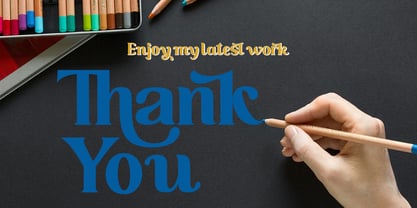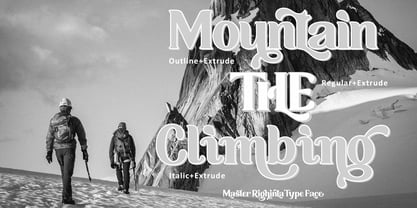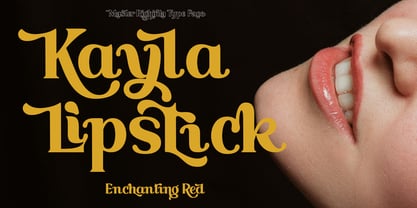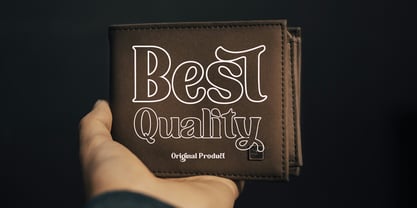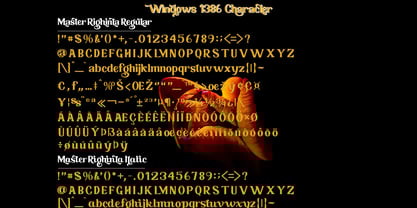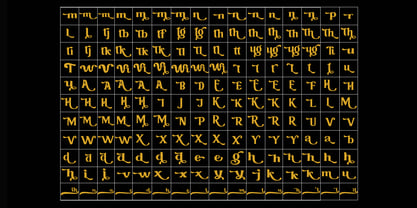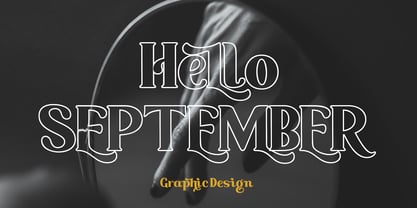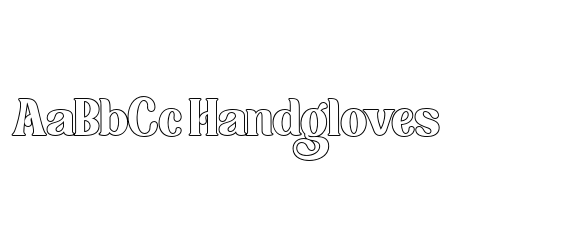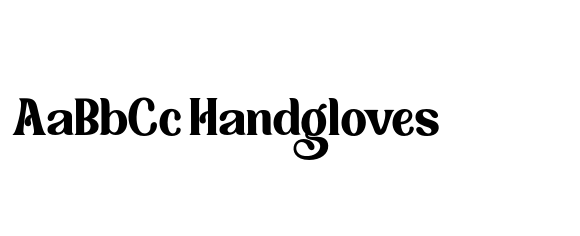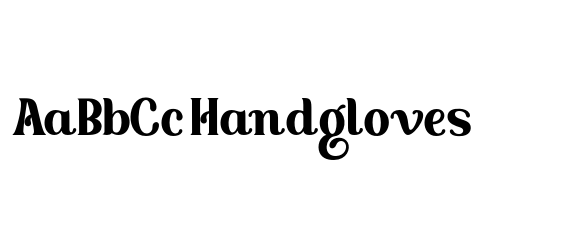
Master Righinta
by TM Type
The Master Righinta Font Family was designed by Teuku Bustami and published by TM Type. Master Righinta contains 6 styles and family package options. More about this family
About the Product Master Righinta Typeface Retro with an artistic touch elegant modern yet vintage the as well as a unique blend of ligatures a letter, so that the authors compose it with a and little swirly embedding, so that a modern font is formed and ready to make a statement by adding elegant and unique flair to your next design project. Master Righinta Typeface can be used for various purposes such as Magazine Title, Poster, Logo, T-Shirt, Sub Title, Business cards, Magazines, Book Covers, Wedding Invitations,Templates Instagram Story Post, Greeting Cards, Quotes, etc. These letters are embedded into the font file and easily accessible in programs such as photoshop and illustrator. You can access these in more basic design programs but you will need to use your character map or font book Come on..let's style and pamper your next design with Master Righinta Typeface
Designers: Teuku Bustami
Foundry: TM Type